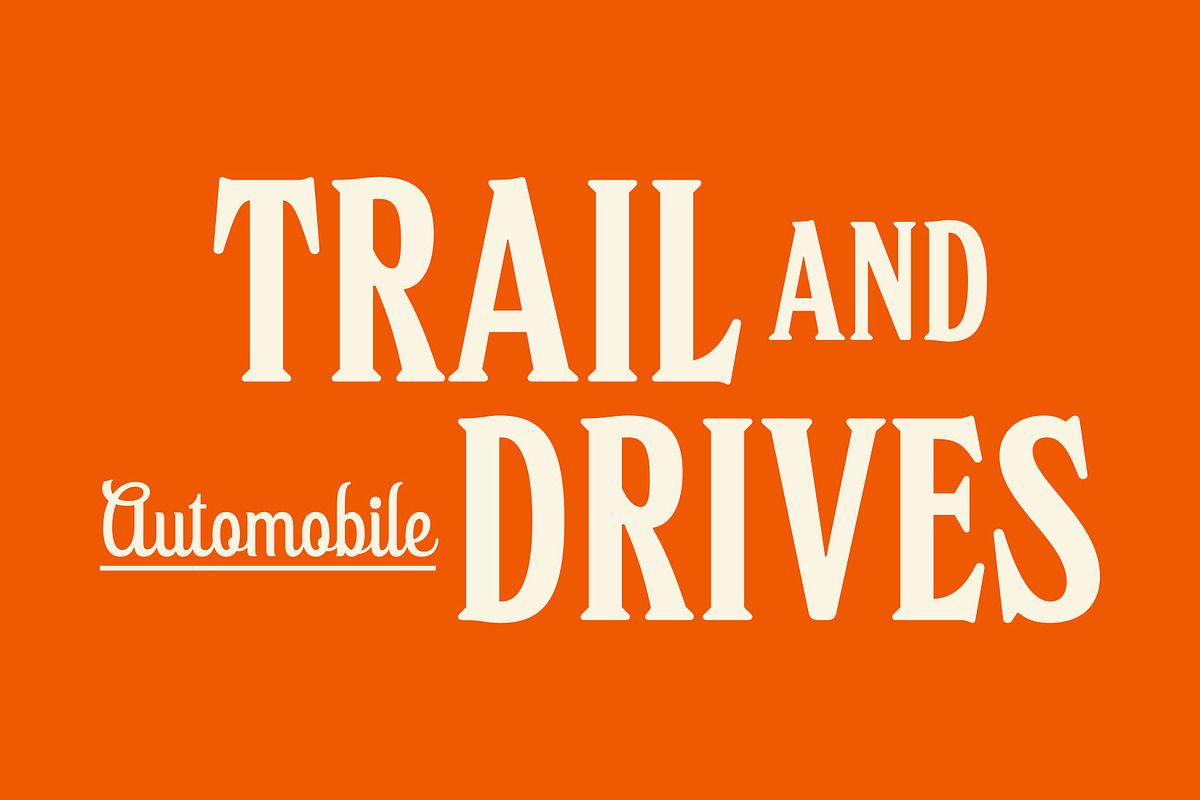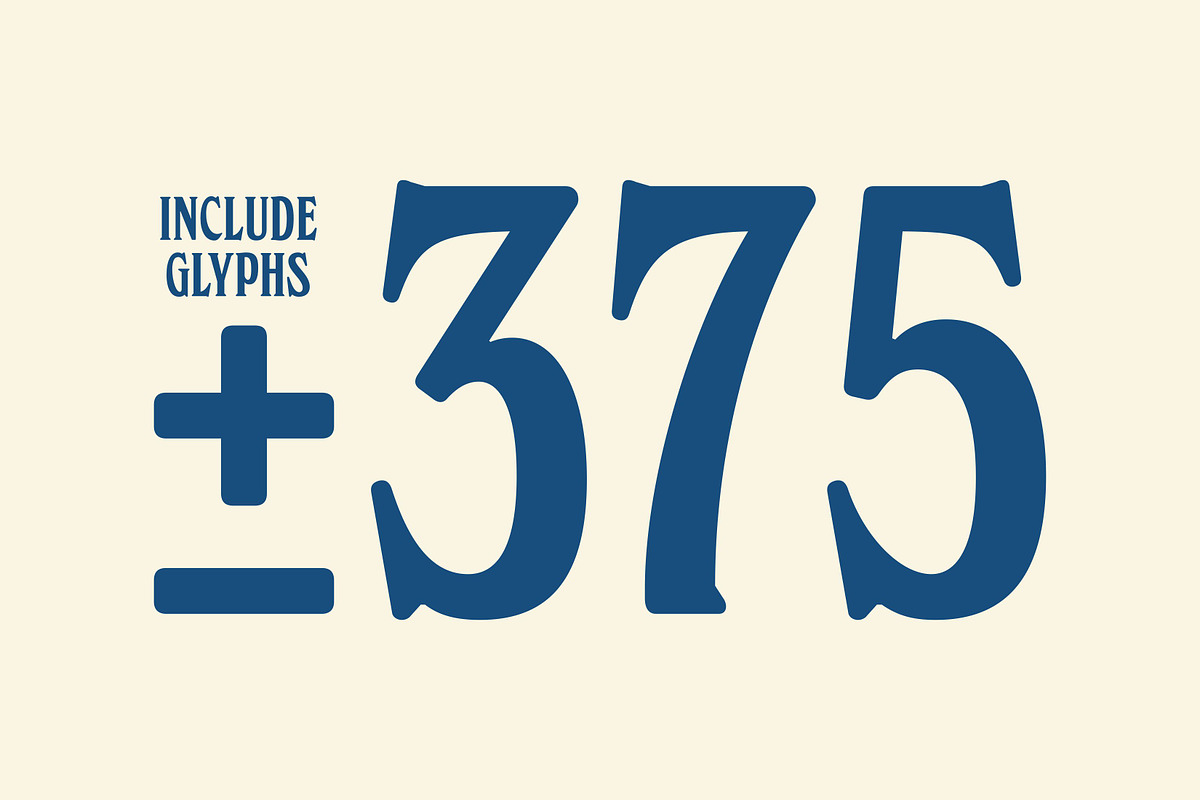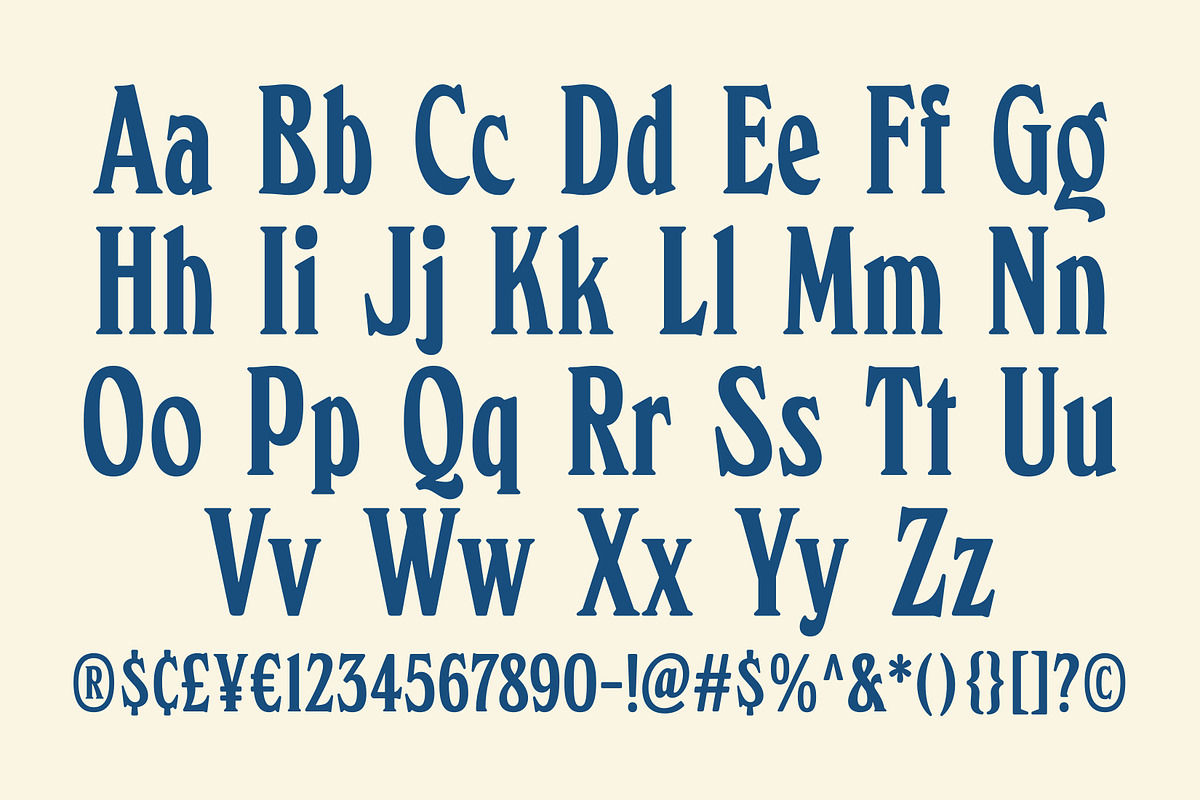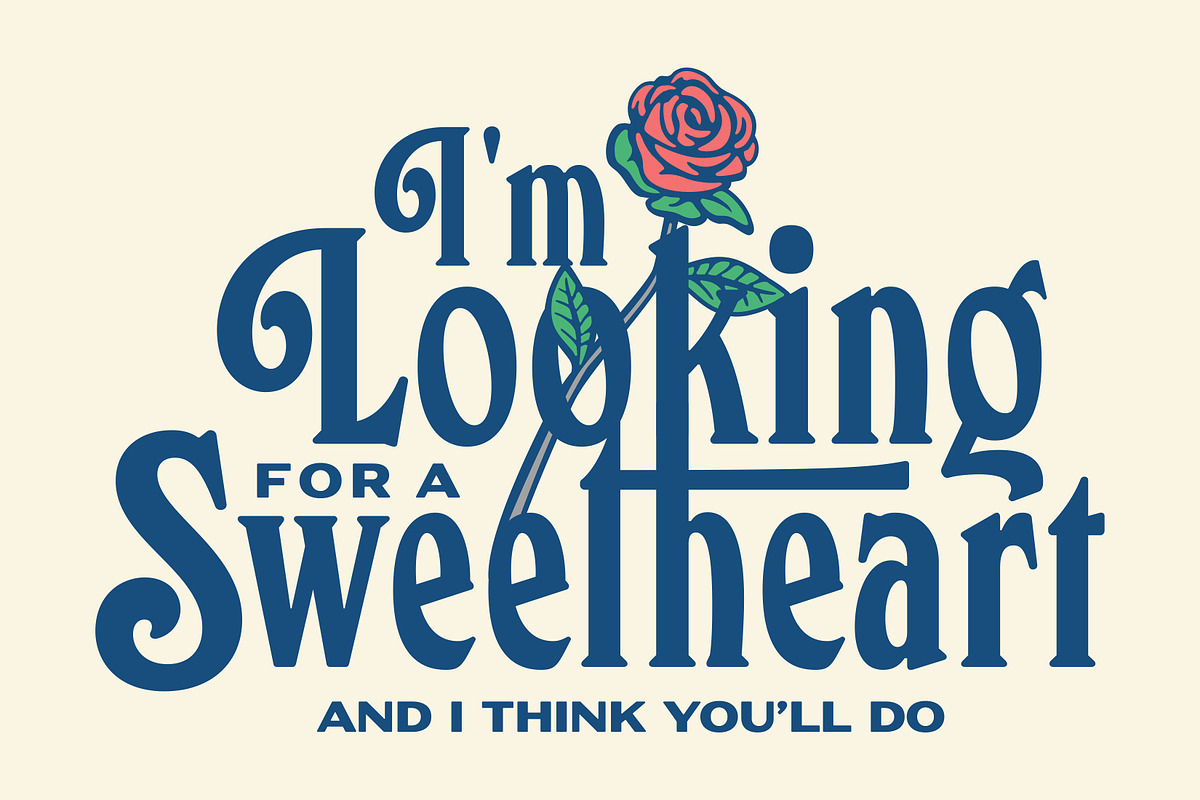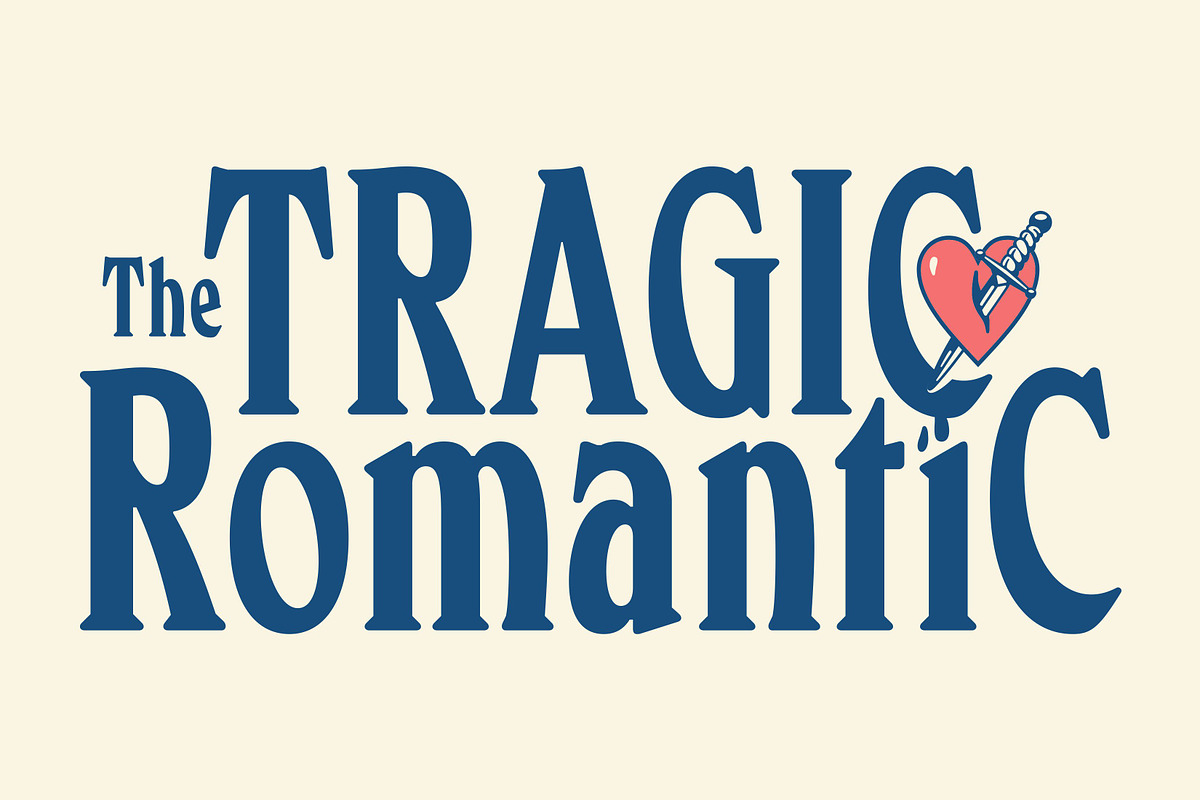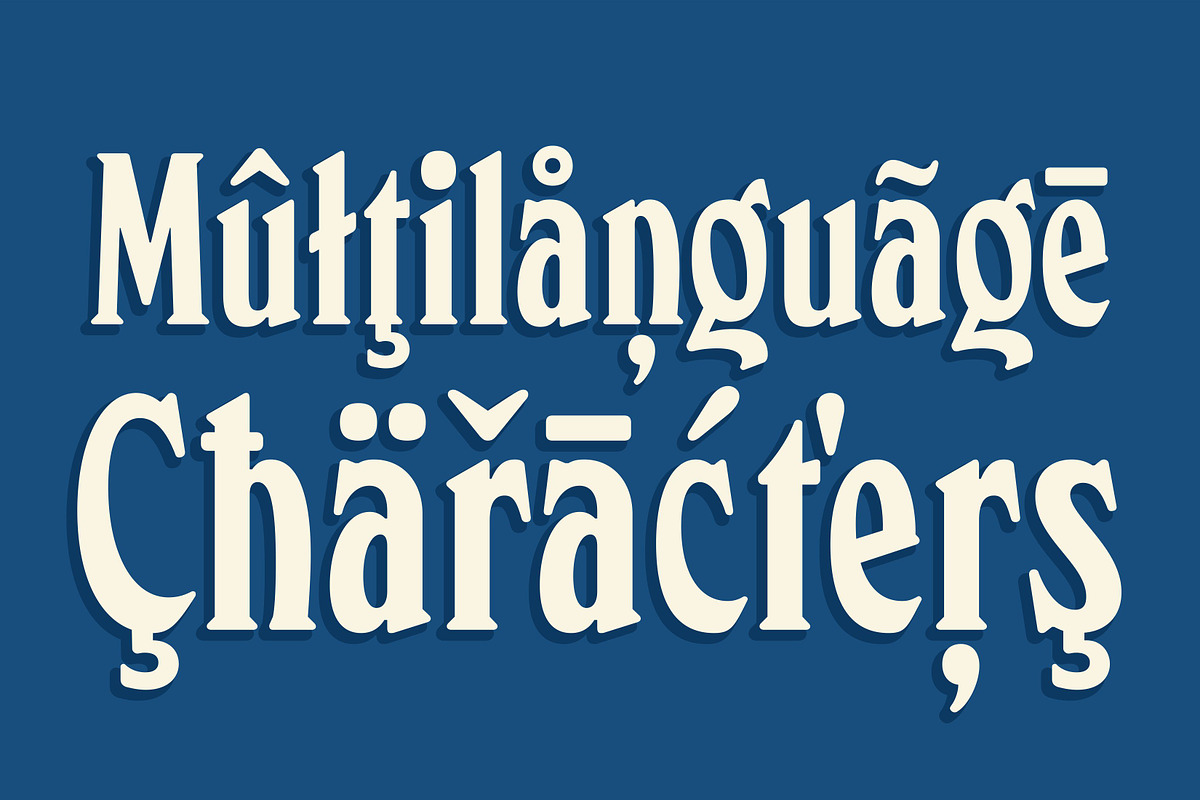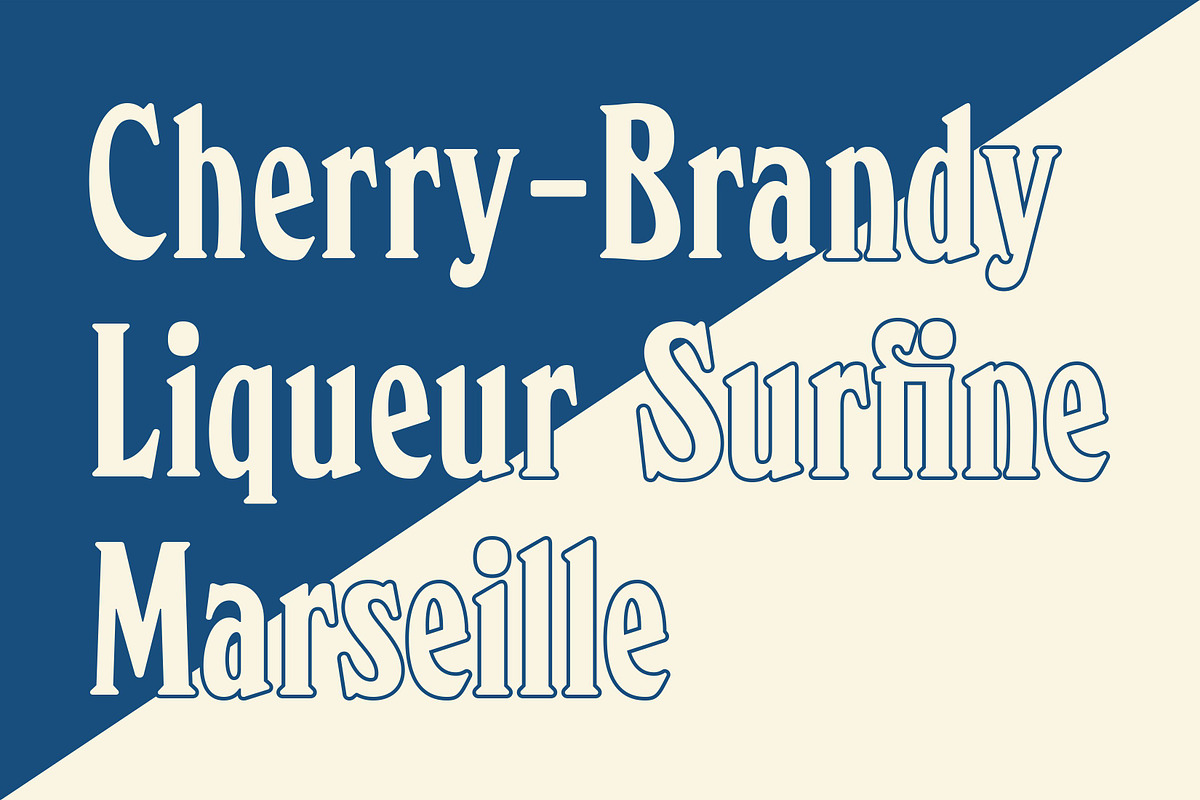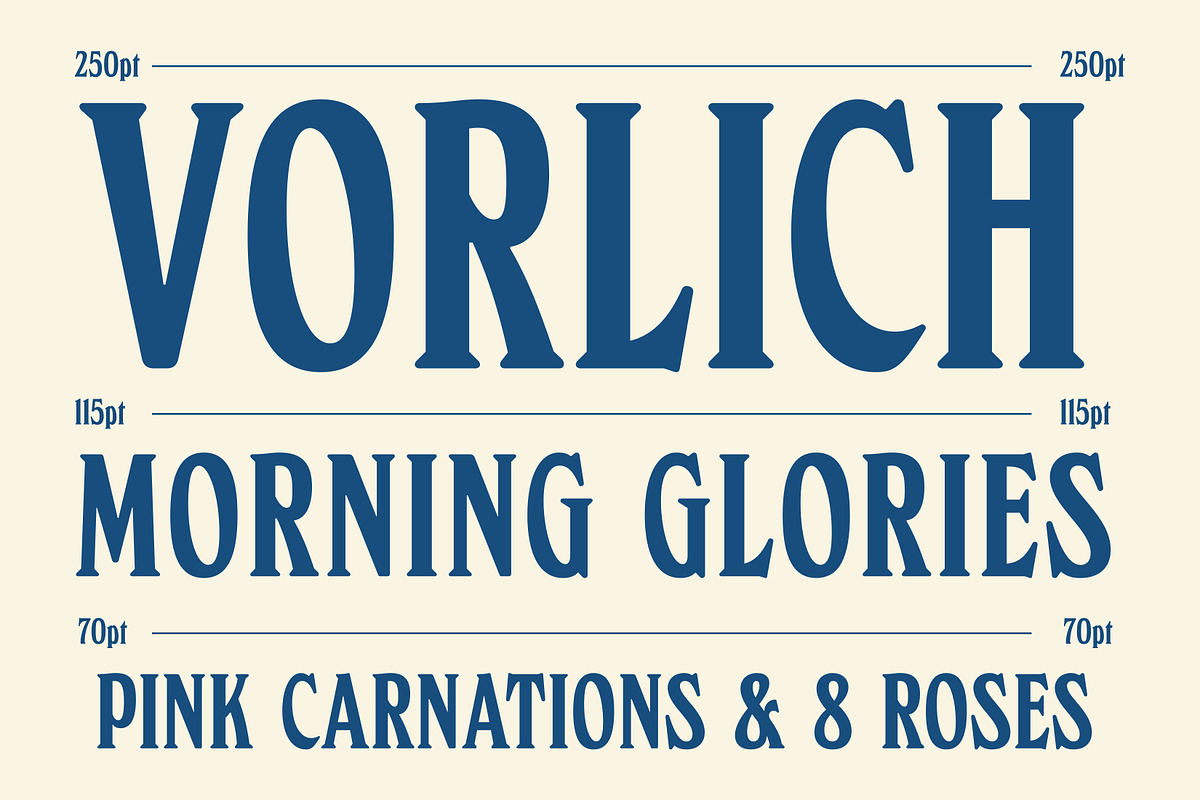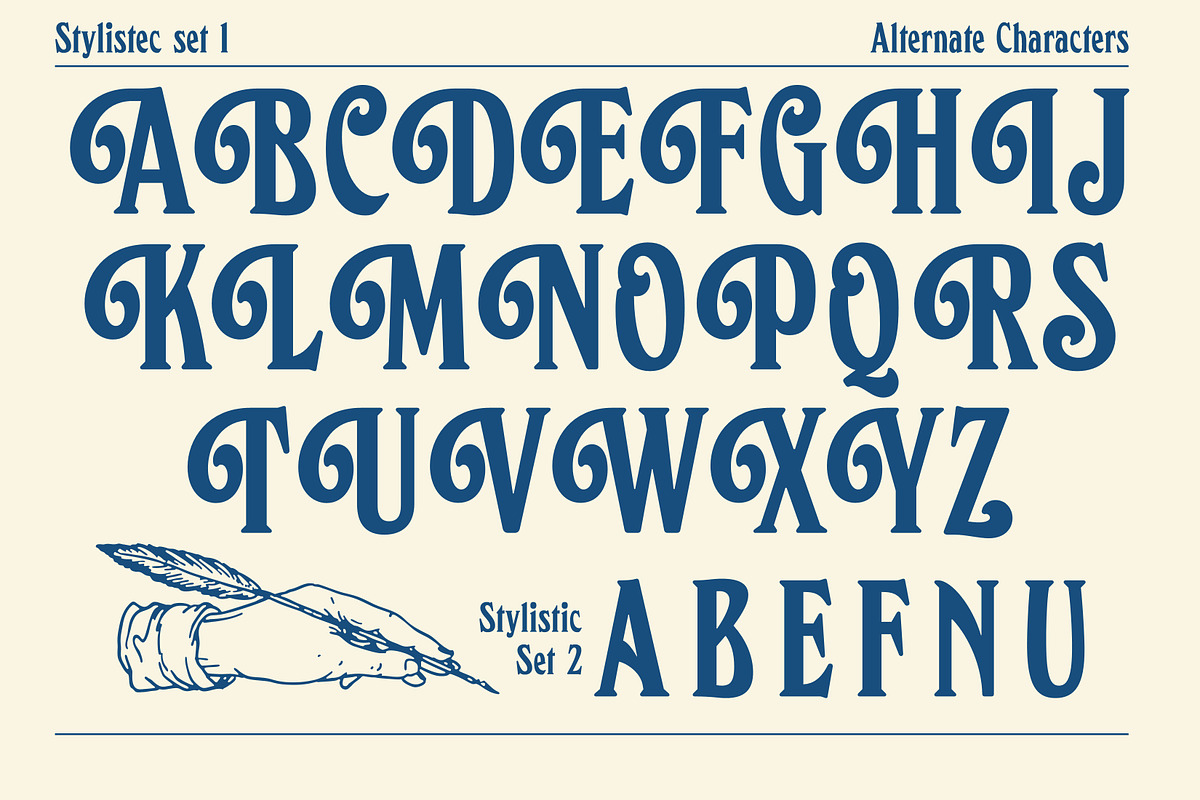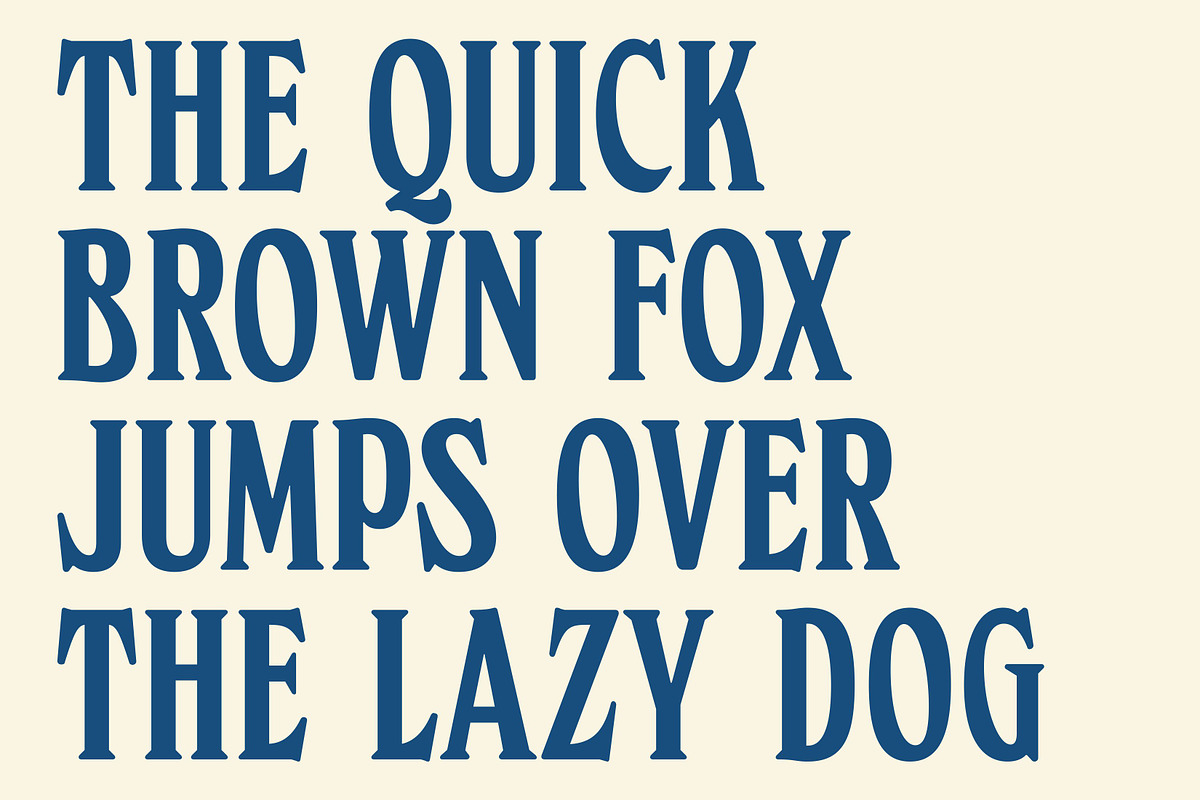
Vorlich - Classy Decorative Typeface
Classy Serif condensed display typeface with & rounded corner. Inspired by vintage sign and logotype of advertising branding.
This font is suitable for graphic designs such as logotypes, merchandise, printed stickers, and other branding needs.
- ±375 Glyphs Include Alternate Characters
| Uppercase & Lowercase | Numerals & Punctuation | Ligatures | Multilanguage support